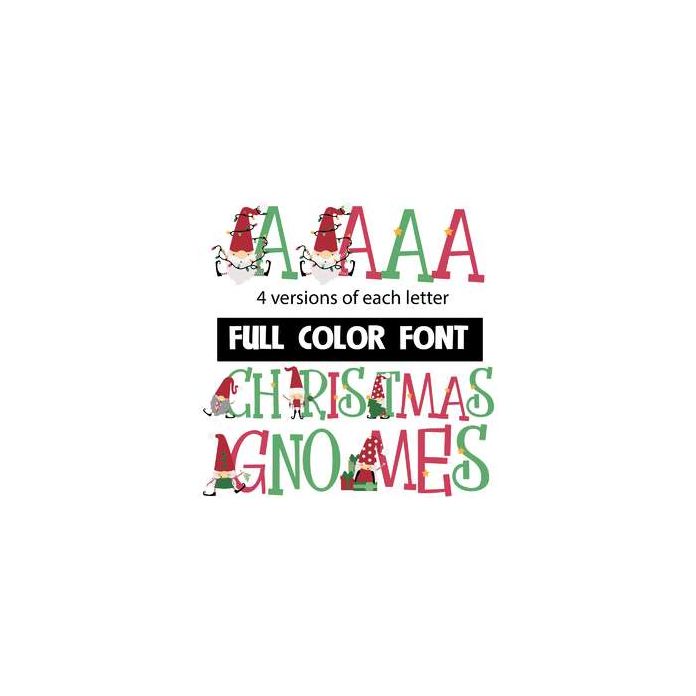
This full-color font has gnomes by the uppercase and a lowercase without. There is an additional "red" upper and lowercase you can access through your system's character map. This font works best for titles, displays, posters and more. Please note color fonts will show as black in non compatible programs. This font type is compatible with Silhouette Studio.